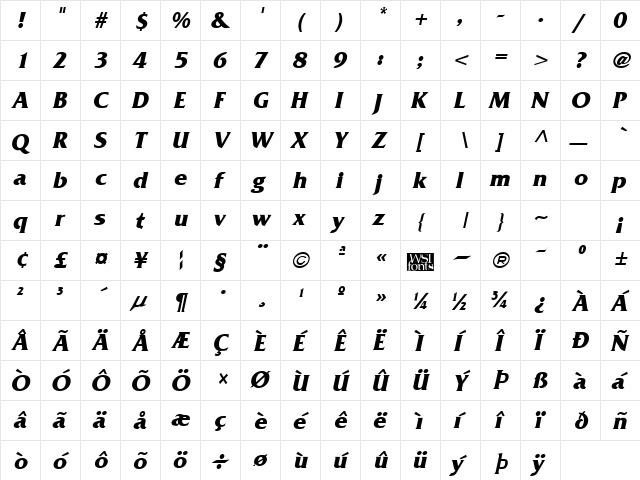
Fritz Bold Italic
Design Context for Fritz Typeface
Fritz takes a measured approach to typography — its balanced proportions and neutral character make it a reliable workhorse for both digital and print work. The slanted form adds forward momentum and visual energy. The heavy weight commands attention and anchors typographic hierarchies.